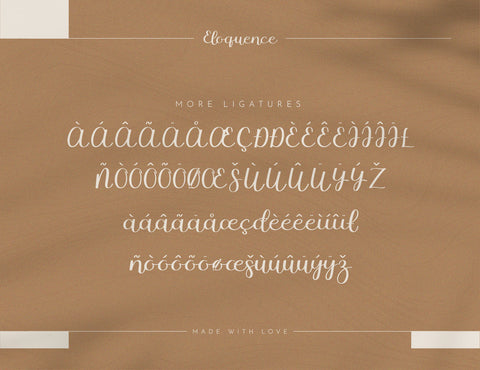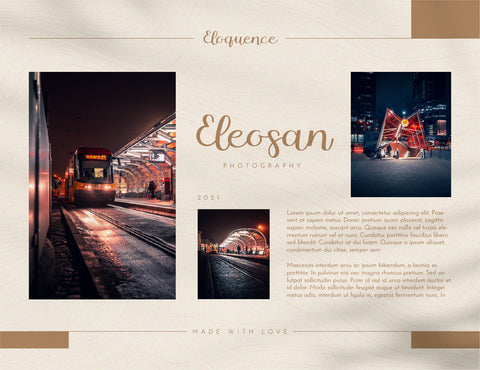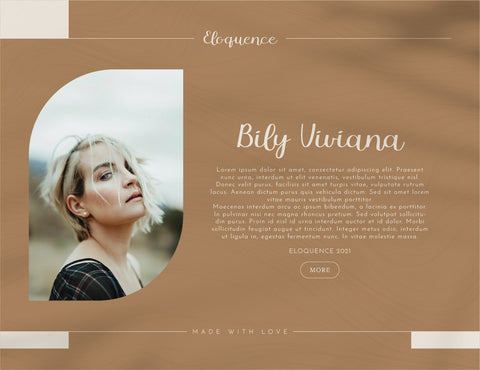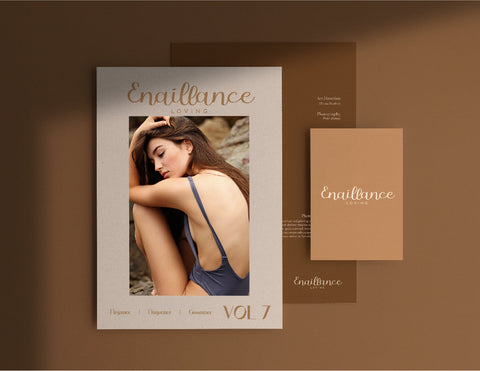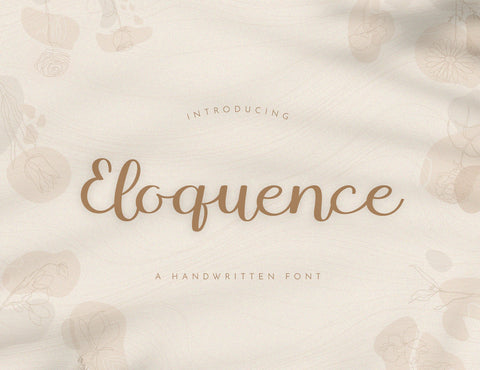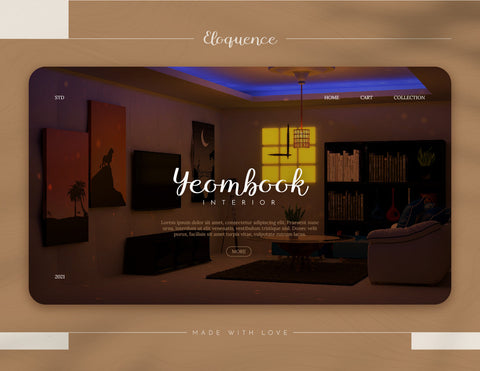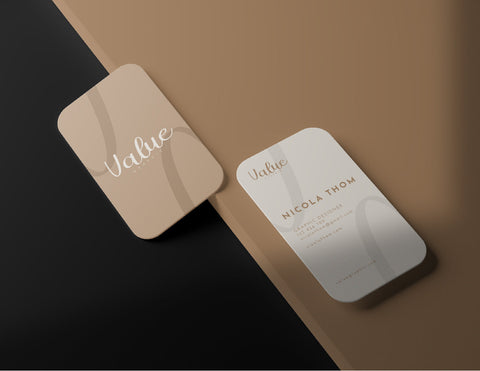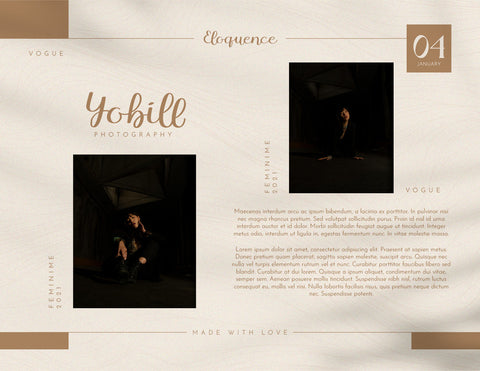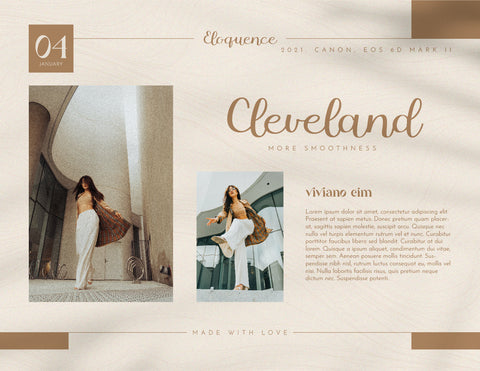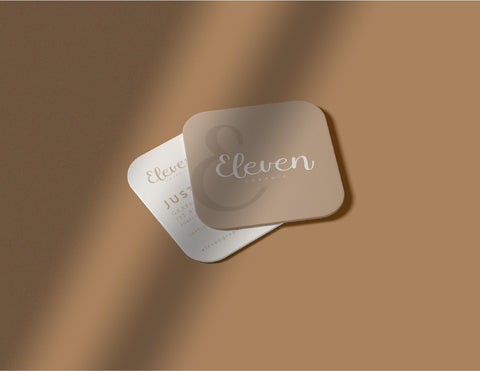
Eloquence Handwritten Script Font
Eloquence is the new fresh Script Font. Designed in 2022, Eloquence is the one of best Script Font which has handwritten taste. Bit messy and detail, "Eloquence" is appropriate using for cards, wedding projects, lettering, masthead, books, branding, logos, poster, and another design projects. "Eloquence" will make your design eye-catching, irresistible, and elegant.
- OpenType Features (Stylistic Set)
- Numerals & Punctuations